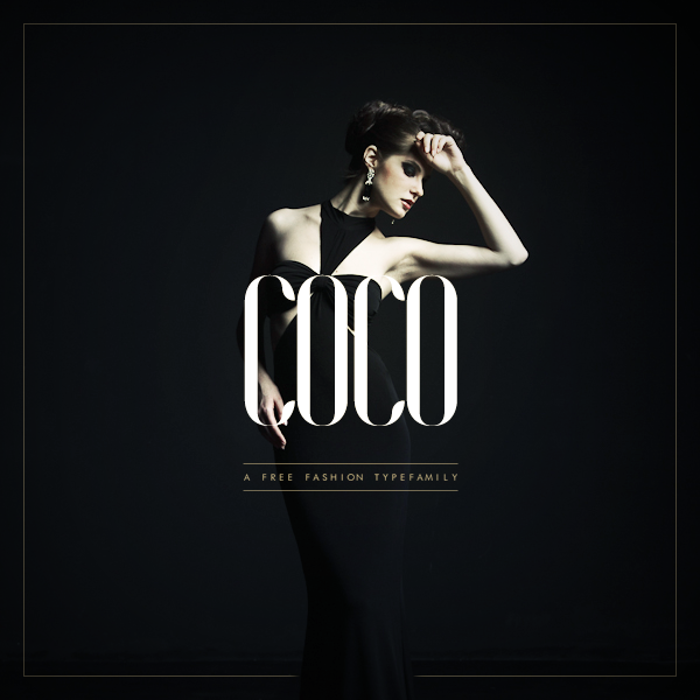
Coco Font
Coco is a sans-serif typefamily declined in a set of 8 fonts with regular, italic, bold, bold-italic, condensed, condensed-italic, condensed bold & condensed bold-italic which can be used for several type of projects from digital to print. Each font has more than 209 glyphs including small letters, capitals, numbers & special glyphs and punctuation. This family is for all type lovers who would like to emphasize a fashion project. So Feel free to use it, share it and create amazing piece of works as you are directors, designers, photographers or models.